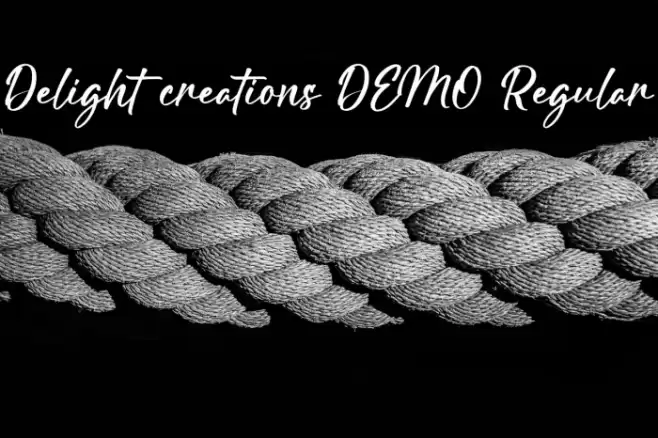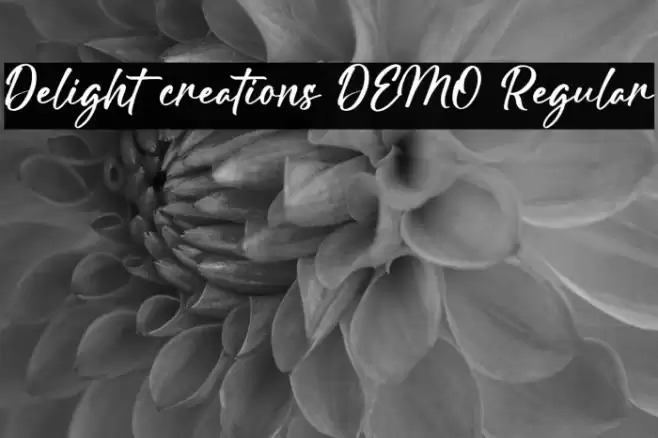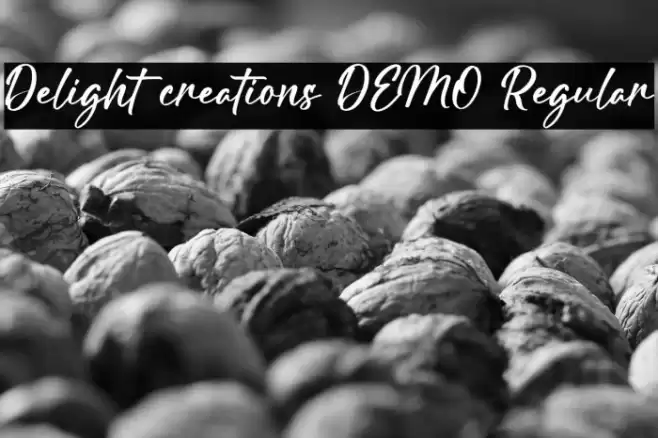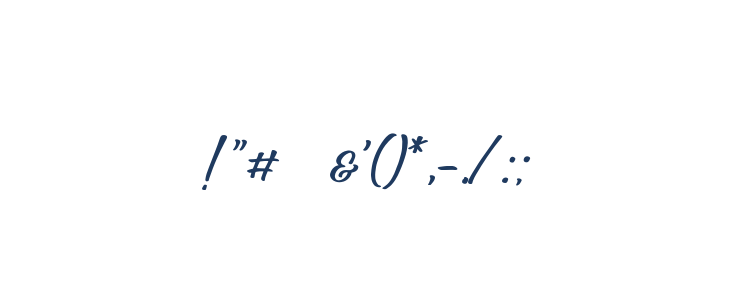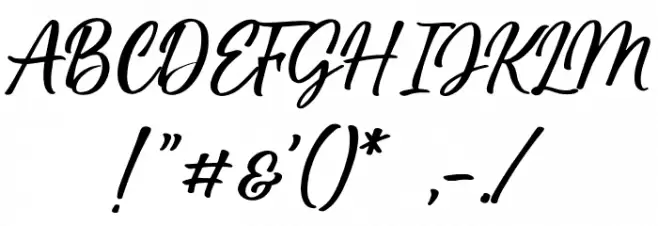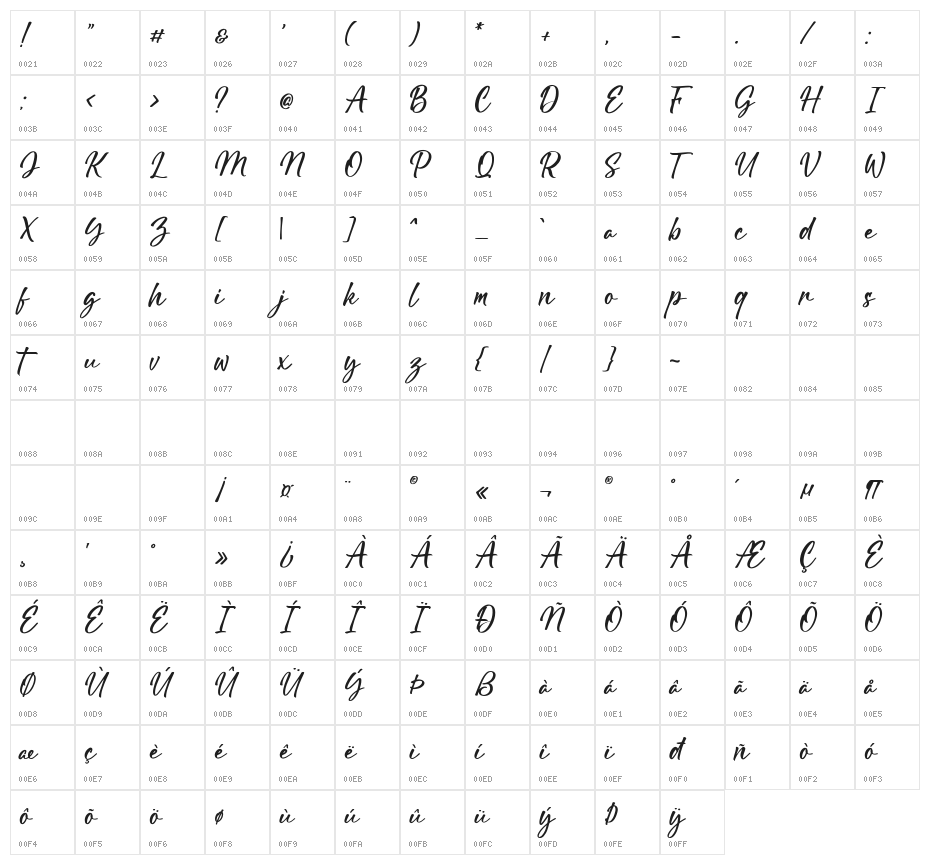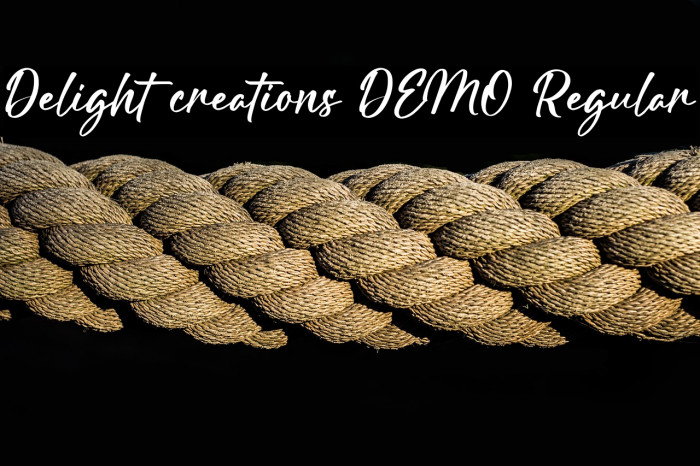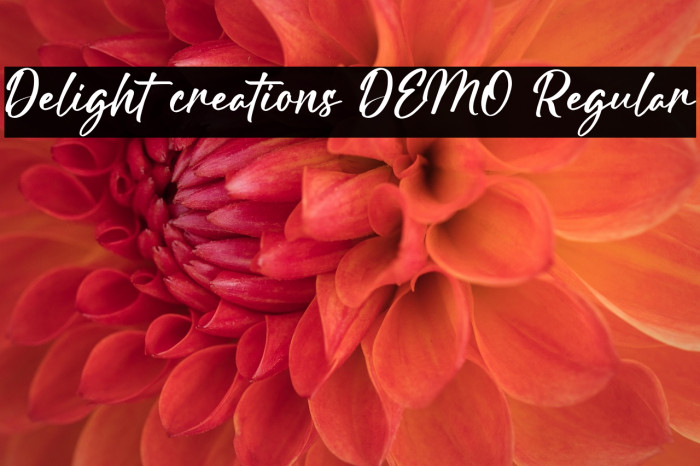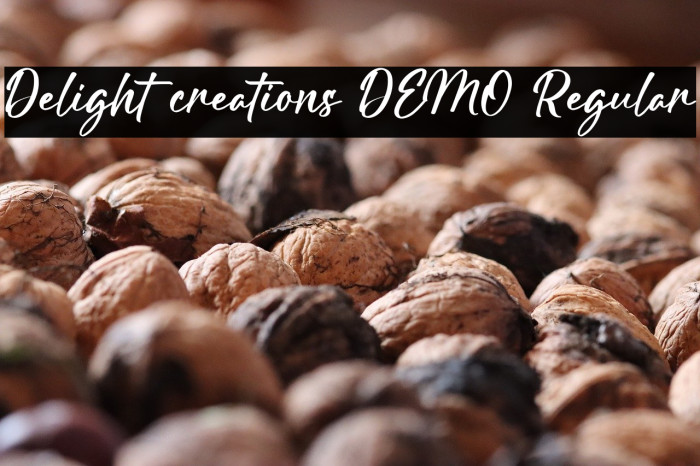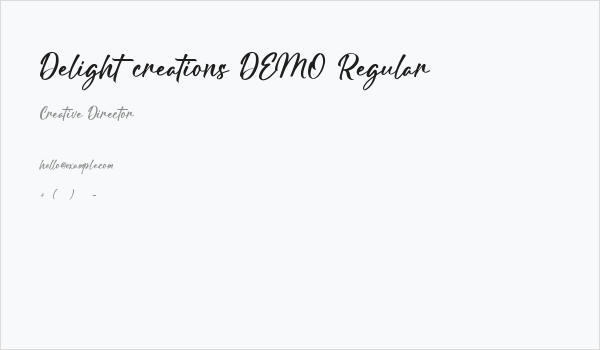
Delight creations DEMO Regular Font
Delight creations DEMO Regular Description
This font features a flowing, cursive style that exudes elegance and sophistication. The letters are connected in a smooth, continuous manner, giving it a handwritten appearance. The uppercase letters are bold and prominent, while the lowercase letters maintain a consistent flow with slightly varying heights and loops. The font includes a full set of uppercase and lowercase letters, numbers, and a selection of special characters. Its design is both artistic and legible, making it suitable for a variety of creative applications.
A flowing, cursive font with an elegant handwritten style from Uncategorized fonts.
- Proposed Projects: Ideal for wedding invitations, greeting cards, branding, and logo design.
- Overall Style: Elegant
- Use Case: Logos, Invitations, Decorative text